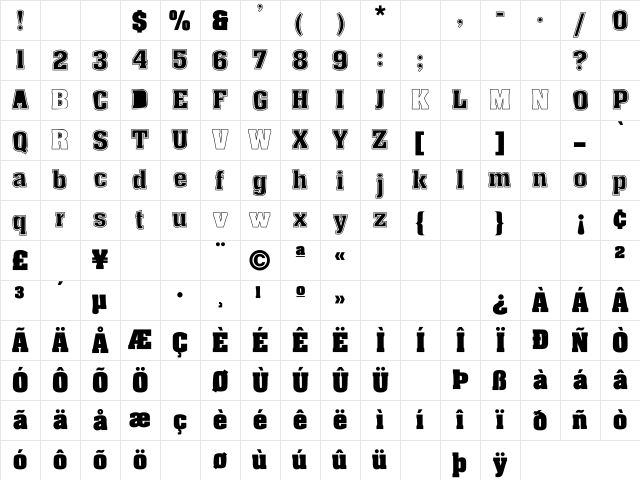
ra ra Normal
Design Context for ra ra
ra ra is a composed and adaptable typeface that performs quietly and consistently across a wide range of design contexts.
Pro Tip: Use ra ra in both headline and body roles to test its range before committing to a single application.